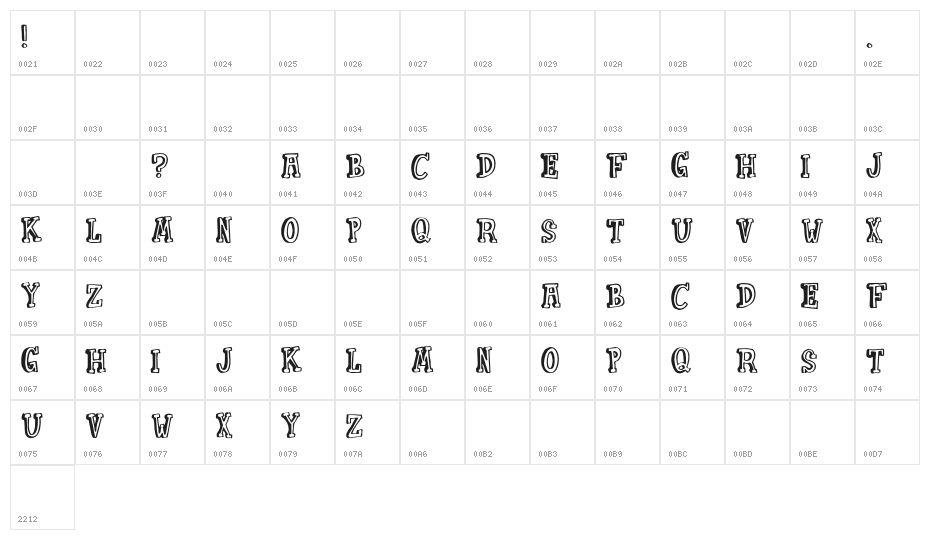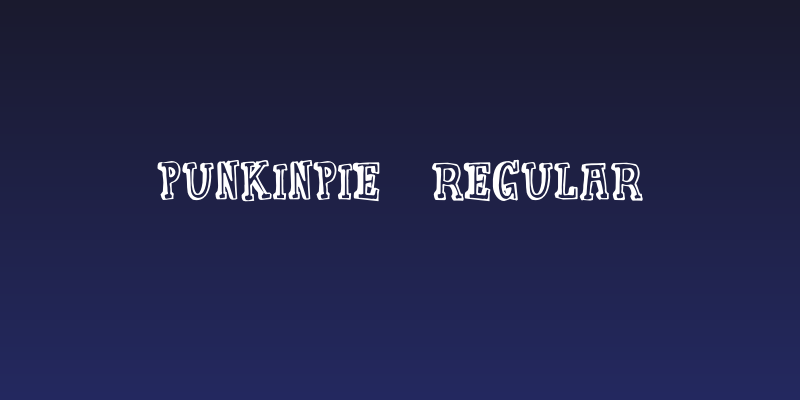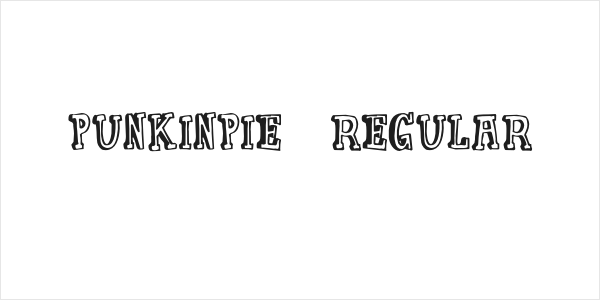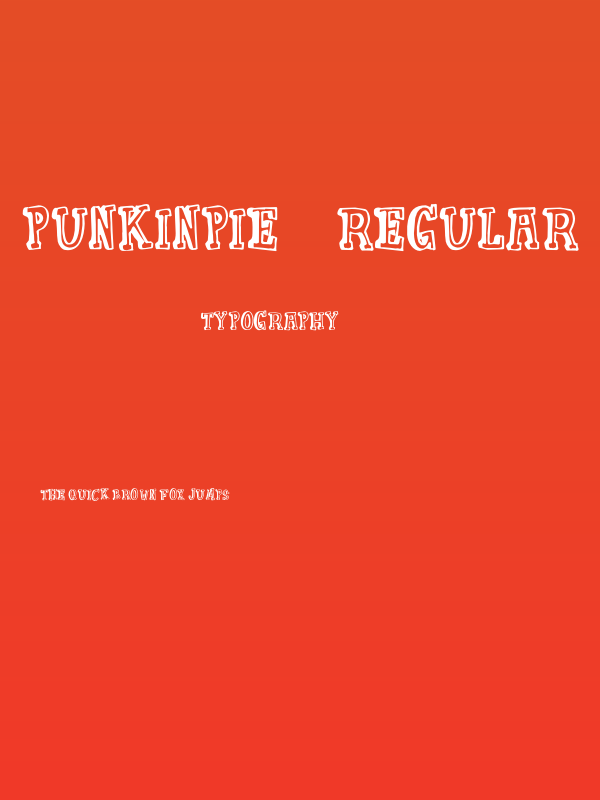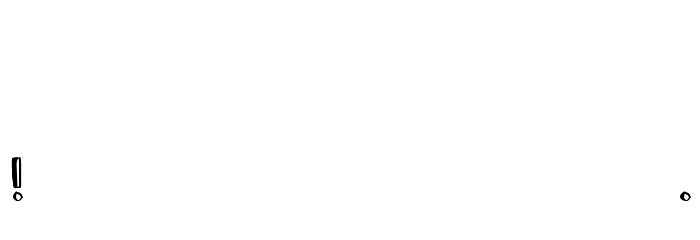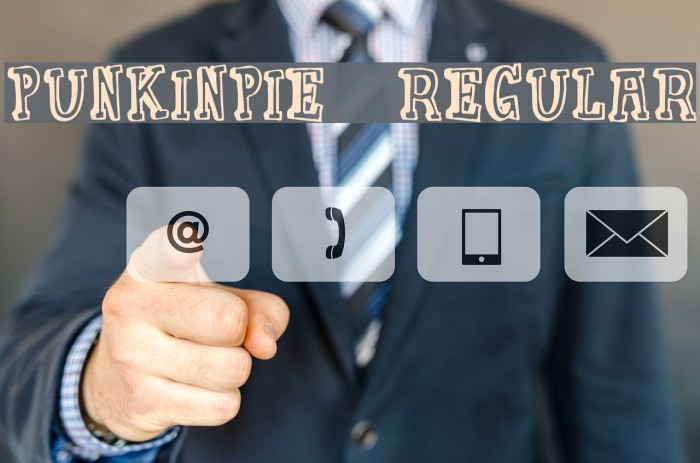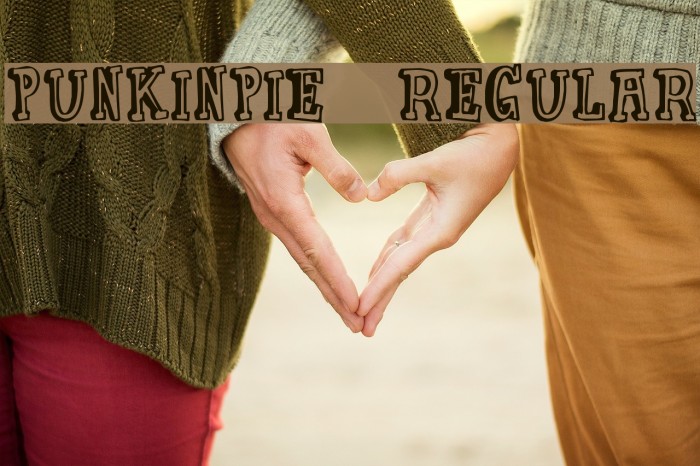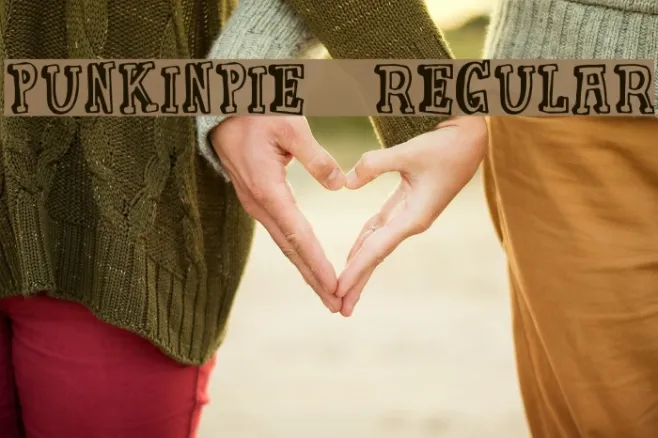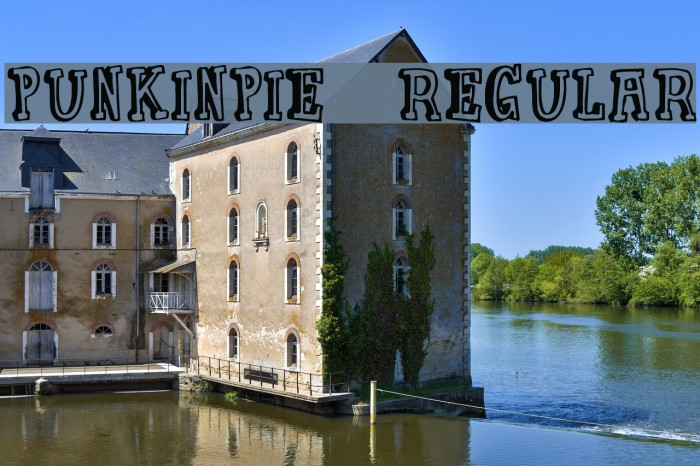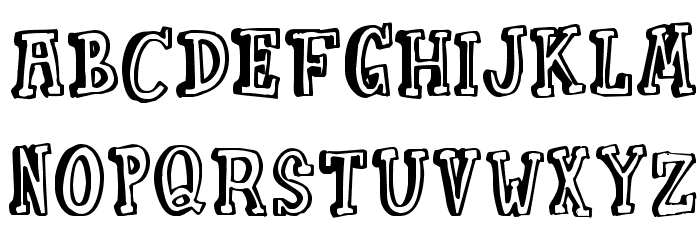
PunkinPie-Regular Font
PunkinPie-Regular Description
This font features a playful and bold design, with each letter exhibiting a hand-drawn, cartoonish style. The characters have a thick outline that adds to their whimsical appearance, making them stand out prominently. The uppercase letters are particularly expressive, with exaggerated curves and angles that give them a lively and dynamic feel. The font's unique style is consistent across all characters, providing a cohesive look that is both fun and eye-catching. The boldness of the font ensures excellent readability, even at smaller sizes, while the quirky design elements make it ideal for creative projects.
| Overall Style | Playful, Cartoonish |
| Proposed Projects | Ideal for children's books, comic strips, playful branding, and party invitations. |